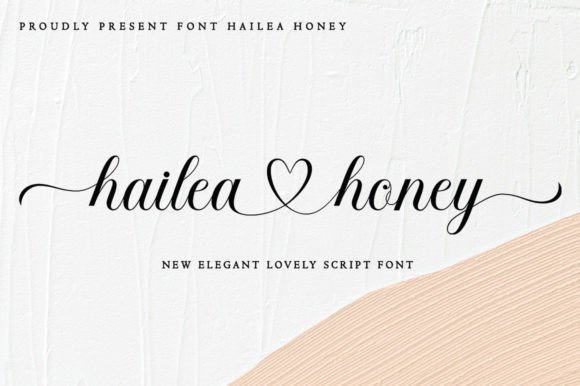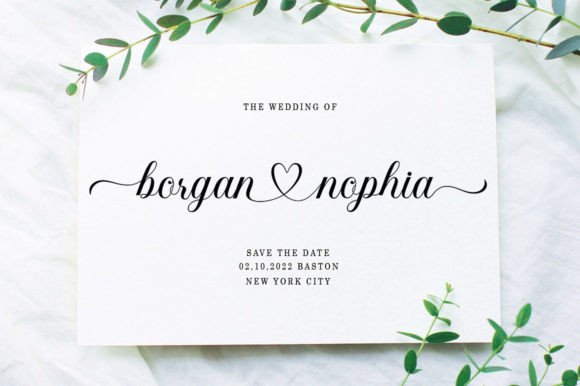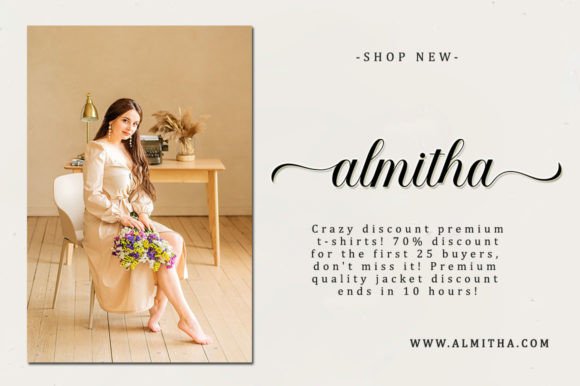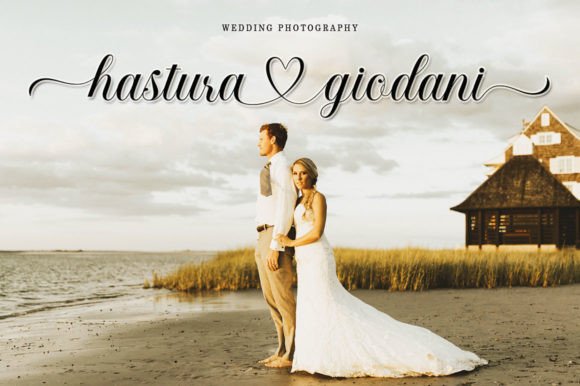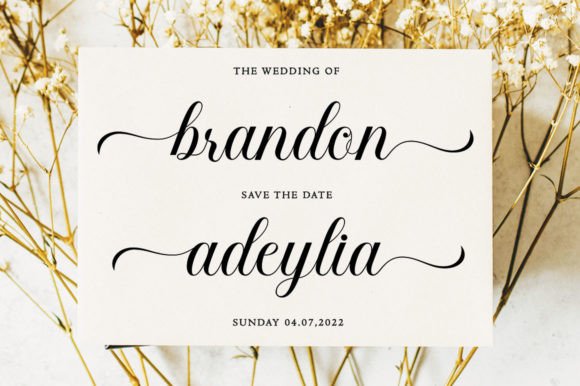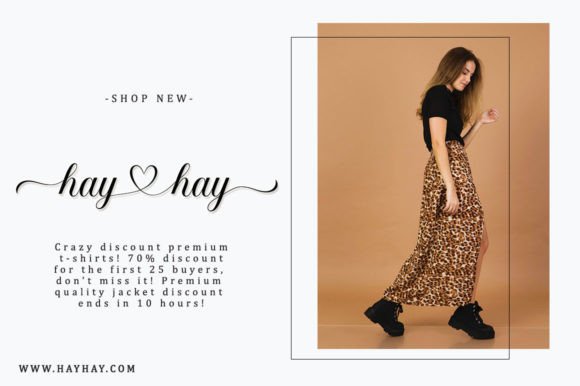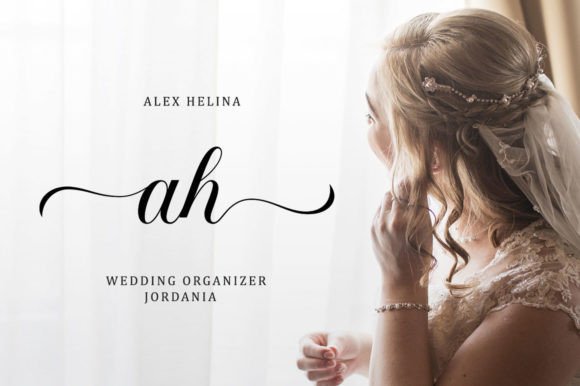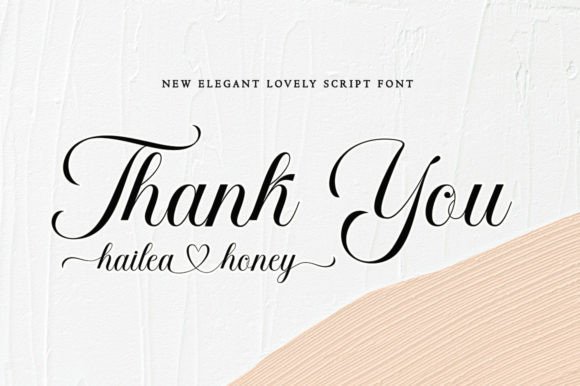
Hailea Honey Font
About Hailea Honey Font
Elevate your romantic and elegant designs with the Hailea Honey Font download. This beautiful script typeface captures the essence of love and charm, making it the perfect companion for wedding invitations, branding materials, and heartfelt designs. Crafted with fluid curves and graceful swashes, Hailea Honey delivers a soft and refined handwritten style.
From its first glance, this font radiates romance and warmth. Each letter flows smoothly, creating a luxurious feel ideal for projects that demand a personal and emotional touch. Whether you’re designing for a wedding, launching a feminine brand, or adding elegance to your packaging, this font brings beauty and balance to the table.
Perfect for Romantic and Elegant Designs
The Hailea Honey Font download is incredibly versatile. Its romantic look and feel make it perfect for:
• Wedding invitations and RSVP cards
• Brand logos and feminine business cards
• Social media graphics and Instagram quotes
• Product packaging and cosmetic labels
• Greeting cards, love letters, and stationery sets
• Blog headers and digital scrapbooking
Hailea Honey complements both modern and classic aesthetics. You can pair it with minimal sans-serifs for contrast or layer it with decorative elements for a luxurious feel.
Why Choose Hailea Honey Font?
Here’s what makes the Hailea Honey Font download stand out:
• Elegant handwritten script with romantic swashes
• High-quality strokes for professional printing
• PUA encoded, giving you access to all ligatures and alternate characters
• Smooth and balanced structure for easy readability
Designers love it for its polished curves, while crafters enjoy its versatility across multiple platforms. Whether you’re designing for print or digital, this font adjusts beautifully without losing its charm.